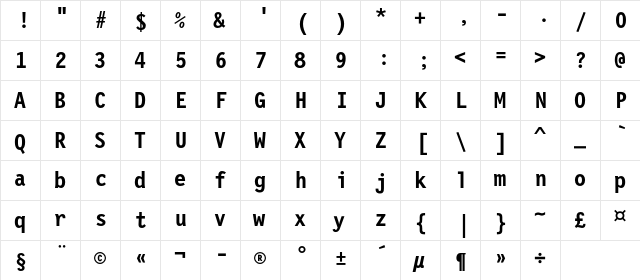
LettrGoth12C BT Bold
Design Context for LettrGoth12C BT Typeface
LettrGoth12C BT is a composed and adaptable typeface that performs quietly and consistently across a wide range of design contexts. Its bold stroke weight gives it real presence on the page.